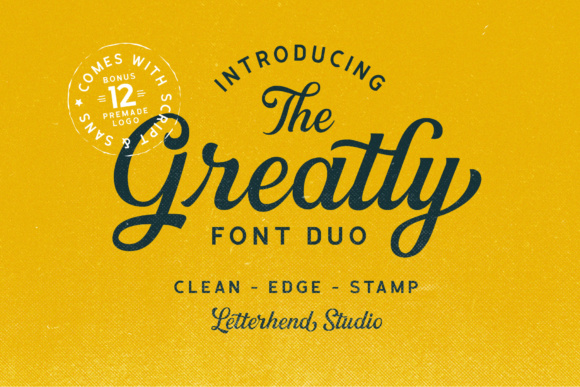
Immerse yourself in the exquisite charm of the Greatly Font, a breathtaking script font family designed to capture the essence of timeless elegance. With its classic appeal, it is the perfect choice for designers seeking a sophisticated and enduring typeface that transcends the boundaries of time.
Discover the allure of the Greatly Clean style, where each letter dances with graceful curves, evoking a sense of refinement and understated beauty. Its delicate strokes and harmonious proportions bring a touch of classicism to any design, making it ideal for wedding invitations, vintage-inspired logos, and romantic branding projects.
Unleash the bold personality of the Greatly Edge style, where sharp edges and dynamic lines converge to create a striking visual impact. This style exudes confidence and modernity, making it the perfect choice for contemporary designs, edgy marketing campaigns, and bold headlines that demand attention.
Embrace the rustic charm of the Greatly Stamp style, where distressed textures and worn edges lend an authentic and vintage feel to your creations. This style evokes the nostalgia of bygone eras, making it ideal for retro-inspired designs, handcrafted logos, and packaging that tells a story.
With its PUA encoding, the Greatly Font ensures effortless access to a world of glyphs and swashes. Unleash your creativity and explore the limitless possibilities to add intricate details, elegant flourishes, and enchanting accents to your designs.
The Greatly Font is not just a collection of letters; it's an invitation to embark on a journey through time, where the past and present converge in perfect harmony. Its versatility extends beyond the digital realm, allowing you to effortlessly apply it to physical creations such as signage, apparel, and handcrafted goods.
Elevate your designs to new heights of sophistication and charm with the Greatly Font. Its timeless appeal and versatility make it an indispensable tool for designers seeking to create truly remarkable and enduring works of art.